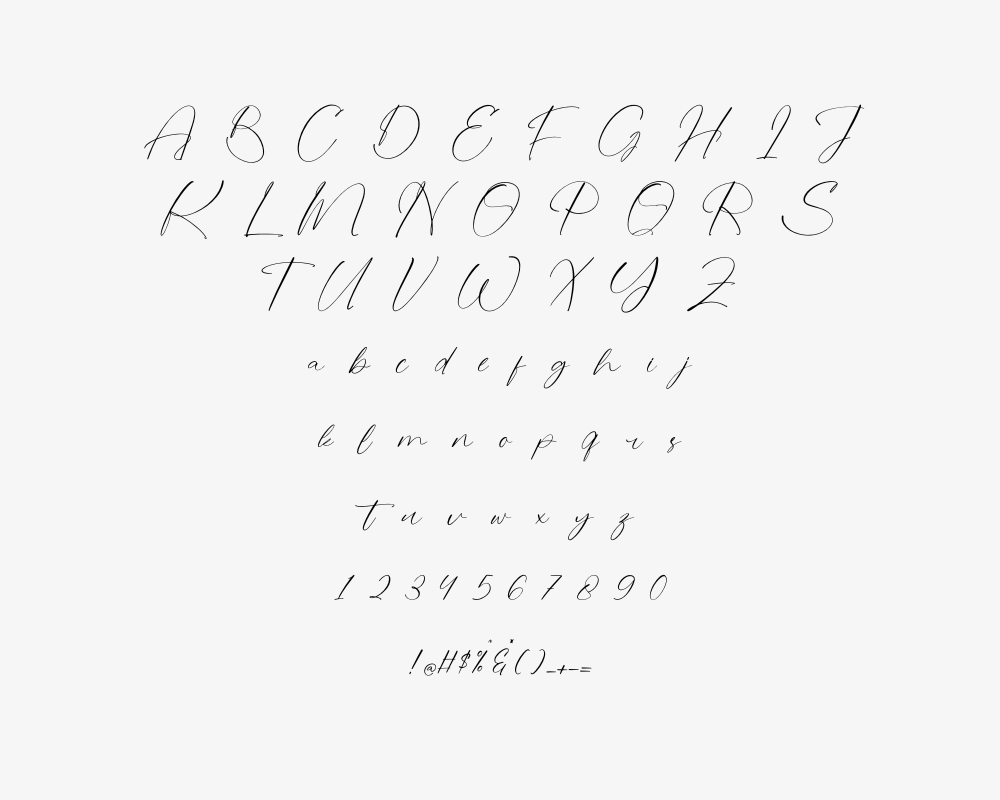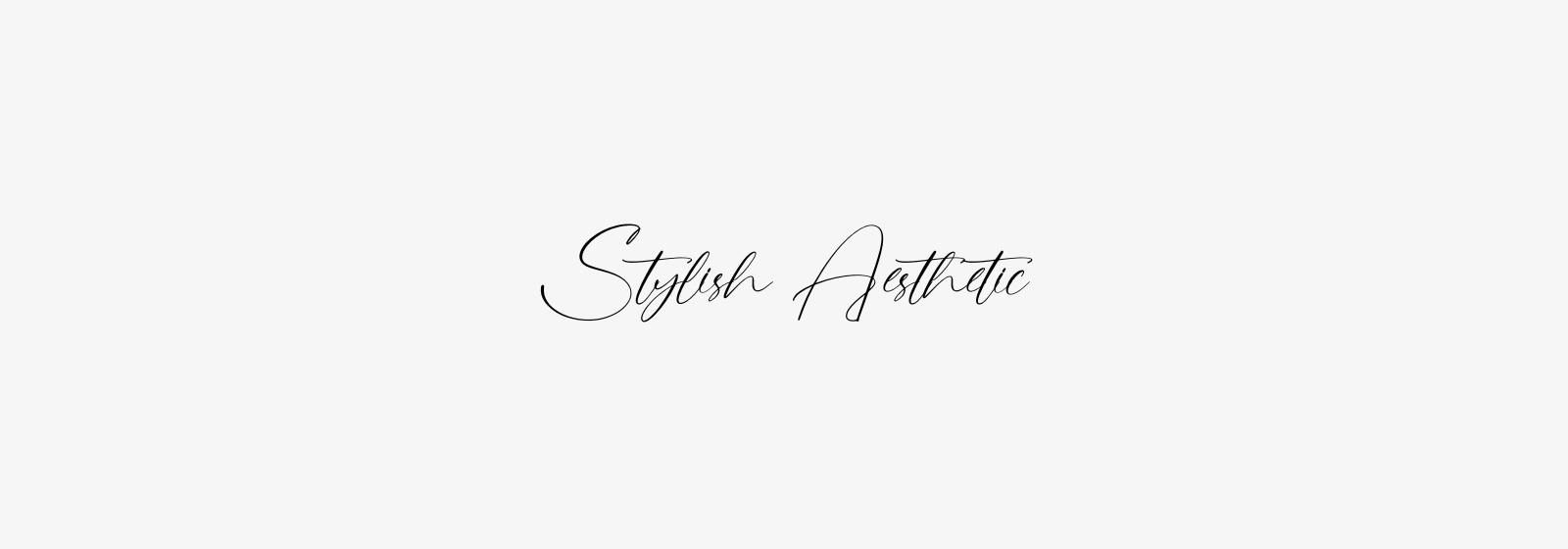
Stylish Aesthetic is a clean handwritten font with elegant style. Moreover, Heru Utama Putra designed it for Stylishtype Studio. Additionally, the font has smooth curves and natural flow. The letters connect well and look like real handwriting. Therefore, it adds a personal touch to any project.
This font works great for wedding invitations and logos. Furthermore, you can use it for product labels and social media posts. The font comes with two styles: regular and italic. Consequently, designers love it for beauty brands and small shops. As a result, your designs get a fresh and friendly look.
| Designer Name | Heru Utama Putra |
| Best For | Logos, wedding invitations, product packaging, branding, social media quotes, labels, beauty products, boutiques |